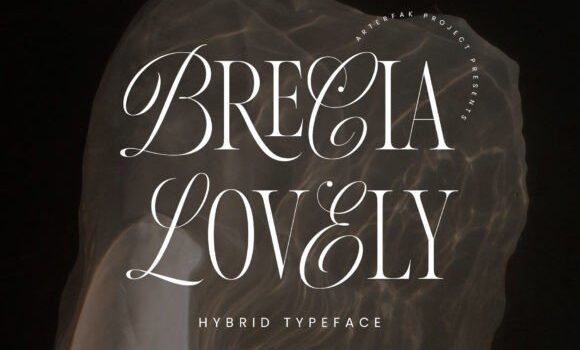
Brecia Lovely Font – Free Download Introduction to Brecia Lovely Font Brecia Lovely is a dynamic, elegant, and luxurious impression display font inspired by fashion magazines and modern typography. 📸 Preview Gallery 6 images 📌 Product Name Brecia Lovely Font